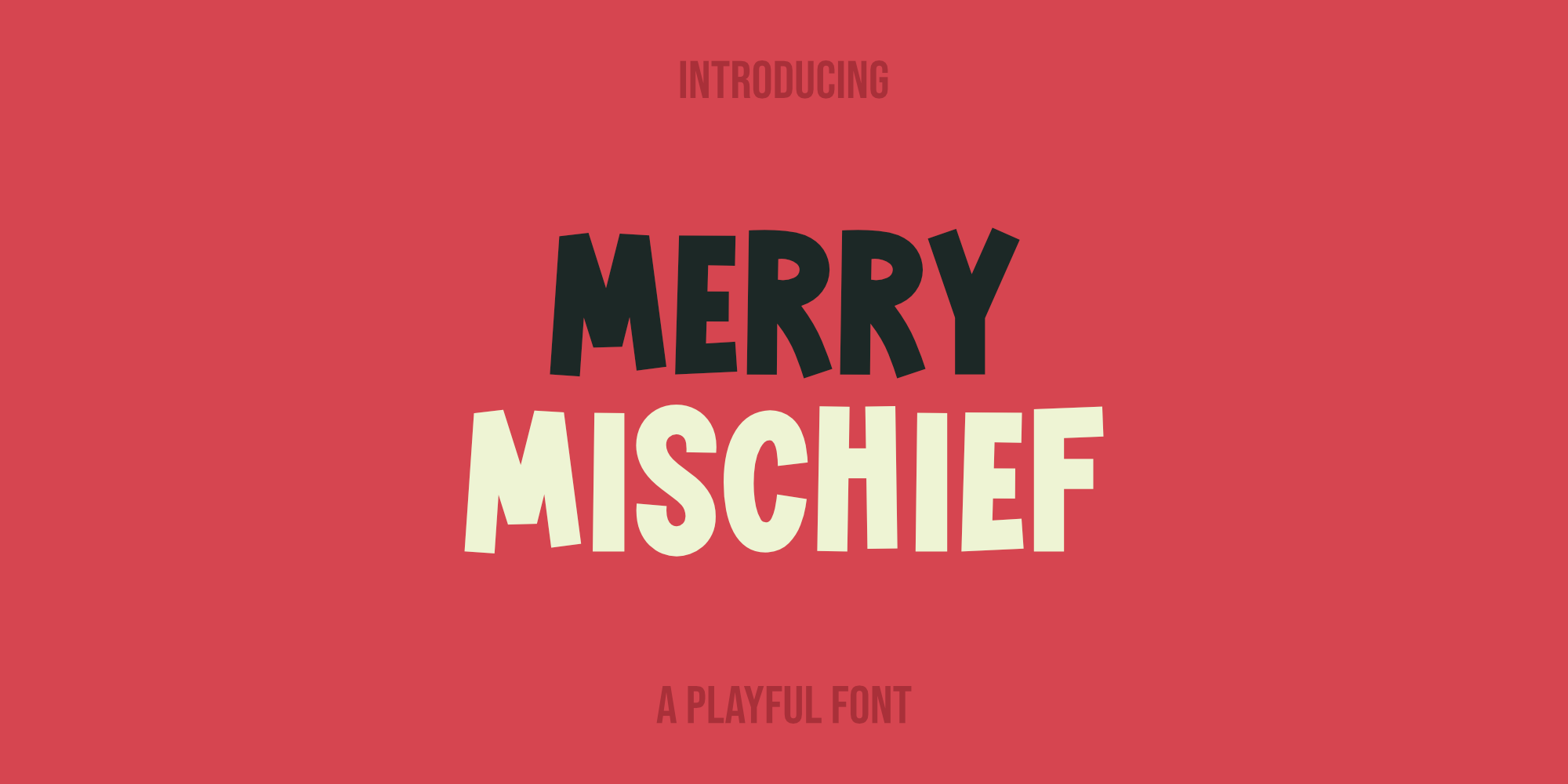
Merry Mischief Font is perfect for playful design applications including children's party invitations, candy store branding, holiday greeting cards, toy packaging design, fun social media graphics, comic book lettering, whimsical poster art, and cheerful advertising campaigns that require typography with joyful personality and mischievous charm.
What makes Merry Mischief Font exciting is its delightful ability to capture the spirit of playful fun and innocent mischief through energetically crafted letterforms that instantly bring smiles and spark joy. This charming typeface features bouncy, irregular characteristics with playful curves and spirited details that evoke childhood wonder and carefree happiness. The font's mischievous personality and infectious energy make it ideal for brands seeking to communicate joy, playfulness, and lighthearted fun to audiences who appreciate whimsical design and cheerful expression.
Merry Mischief Font family includes various stylistic options and decorative elements that enhance its playful mischievous aesthetic. The family typically features regular and bold weights, complemented by bouncy alternates, playful ligatures, and special character variations that provide designers with creative flexibility to achieve naturally expressive and joyful typography solutions.
Fun-focused designers consistently select Merry Mischief Font Free Download for projects requiring typography that embodies pure joy and playful mischief. This delightful typeface brings happiness and personality to brand communications by adding genuine whimsy and emotional warmth to any design project. The font's deliberately playful letterforms create visual excitement while maintaining excellent readability across children's and entertainment applications. Creative agencies worldwide use this cheerful typeface to communicate brand values of joy, creativity, and innocent fun. Spread happiness with Merry Mischief Font and create memorable visual communications that resonate with audiences who believe in the power of play and appreciate delightfully mischievous design that brings out everyone's inner child.